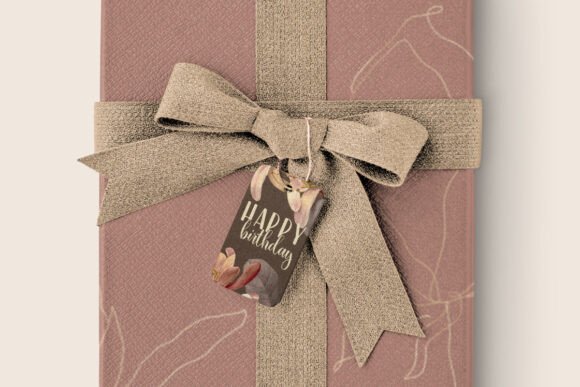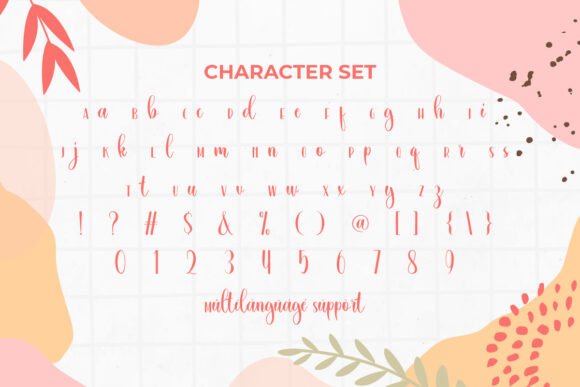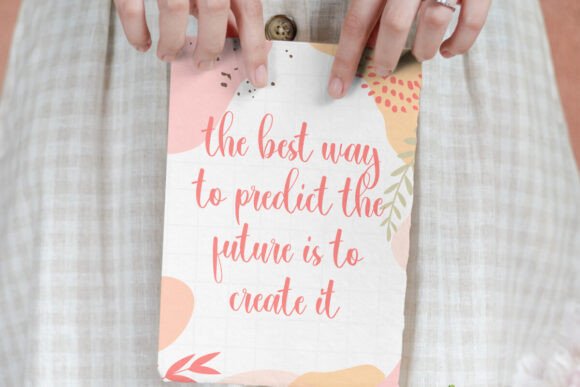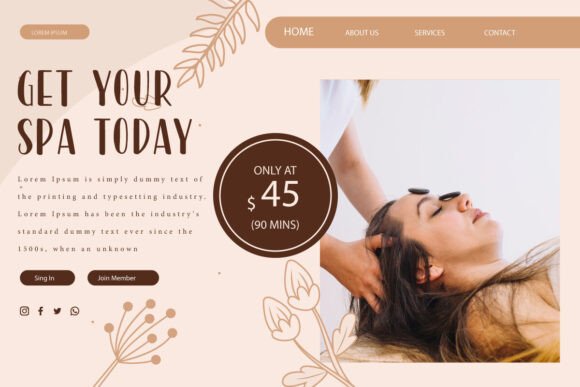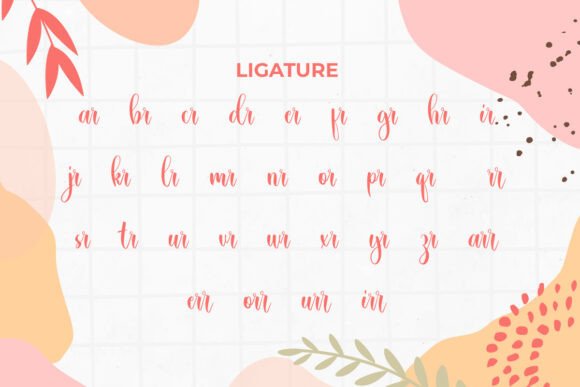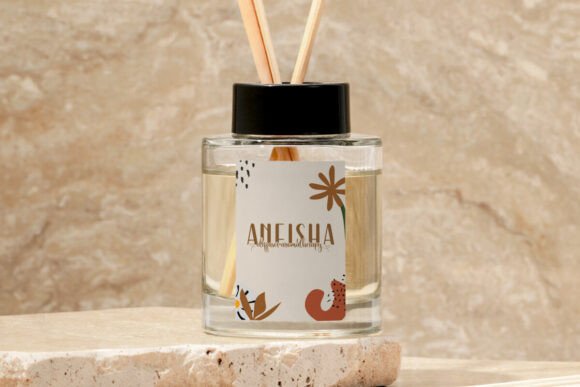
Introducing Happy For You Font: The Perfect Blend of Whimsy and Elegance
Are you tired of using the same old fonts in your design projects? Look no further! Happy For You Font is a delightful and charming font that combines the best of both worlds – casual display uppercases and calligraphic lowercases. This unique blend of handwritten calligraphic and sans serif display fonts is sure to bring a fun and lovely touch to your designs.
A Font that’s Equal Parts Fresh and Beautiful
Happy For You Font is a carefully crafted font that is both fresh and beautiful. The combination of casual display uppercases and calligraphic lowercases creates a visually appealing contrast that will add depth and interest to your designs. Whether you’re working on a brand image, brochure, cover, or any other project, this font is sure to make it stand out.
One of the best things about Happy For You Font is its versatility. It’s perfect for a wide range of design projects, including:
- Brand image: Create a lasting impression with a unique and memorable font.
- Brochure: Make your brochure stand out with a font that’s both fun and elegant.
- Cover: Add a touch of whimsy to your book or magazine cover.
- Custom design: Use Happy For You Font to create a one-of-a-kind design that’s all your own.
- Flyer: Create eye-catching flyers that will grab attention.
- Invitation: Make your invitations extra special with a font that’s both beautiful and playful.
- Label: Add a personal touch to your labels with Happy For You Font.
- Marketing material: Use this font to create marketing materials that will stand out from the crowd.
- Poster: Create posters that are both fun and informative.
- Screen print: Use Happy For You Font to create unique and eye-catching screen prints.
- Signage: Make your signage stand out with a font that’s both bold and elegant.
- Stationery: Add a touch of personality to your stationery with Happy For You Font.
- Sticker: Create stickers that are both fun and memorable.
- Thank you card: Make your thank you cards extra special with a font that’s both beautiful and playful.
- Title: Use Happy For You Font to create titles that are both bold and elegant.
- Website page: Add a touch of whimsy to your website with Happy For You Font.
Why Choose Happy For You Font?
So why choose Happy For You Font for your design projects? Here are just a few reasons:
- Unique and eye-catching: This font is sure to grab attention and make your designs stand out.
- Versatile: Happy For You Font can be used for a wide range of design projects.
- Easy to read: Despite its playful and whimsical nature, Happy For You Font is easy to read and understand.
- High-quality: This font is carefully crafted to ensure that it’s of the highest quality.
In conclusion, Happy For You Font is a delightful and charming font that’s perfect for designers and crafters who want to add a touch of whimsy and elegance to their designs. With its unique blend of casual display uppercases and calligraphic lowercases, this font is sure to bring a fun and lovely touch to your projects. Whether you’re working on a brand image, brochure, cover, or any other design project, Happy For You Font is a great choice.